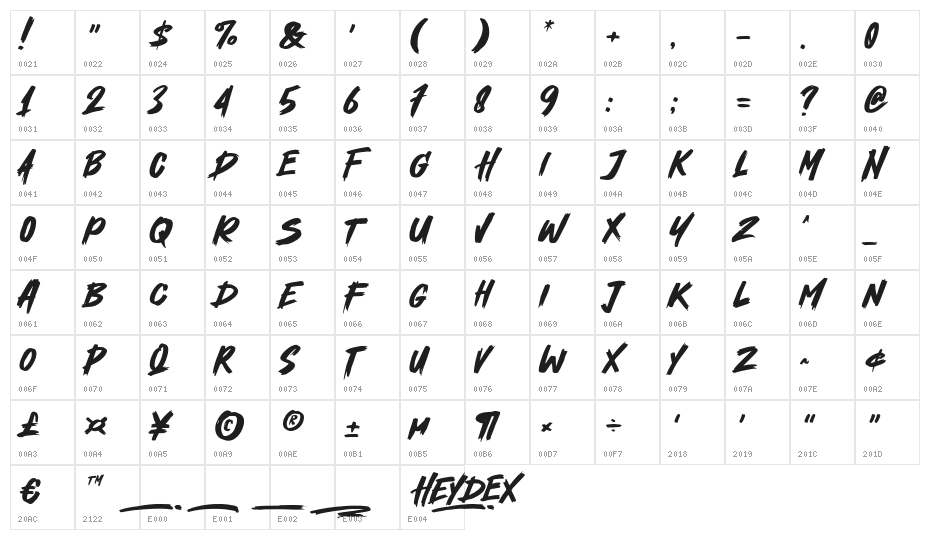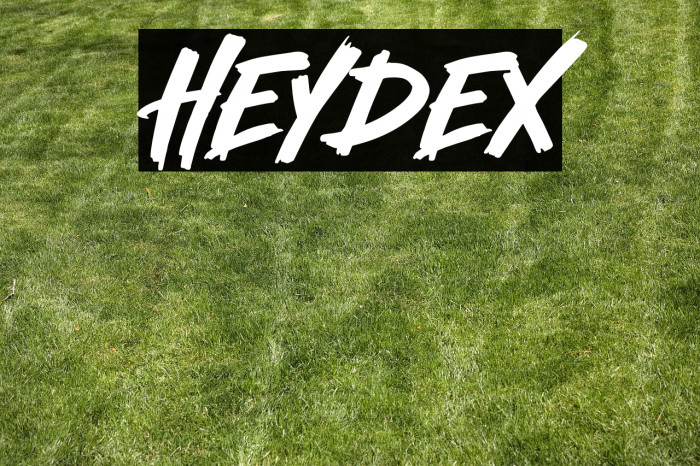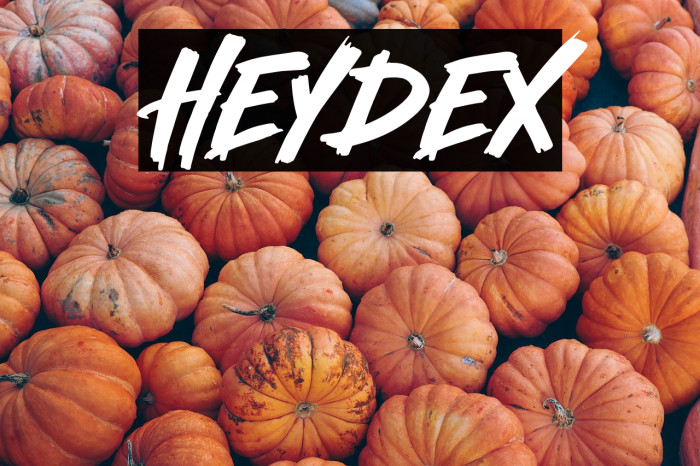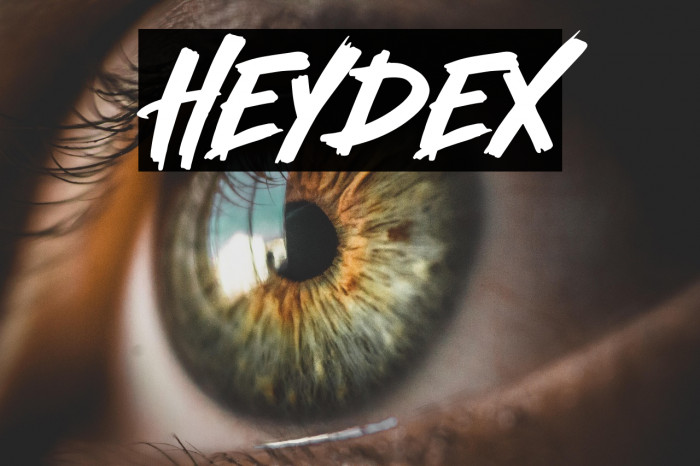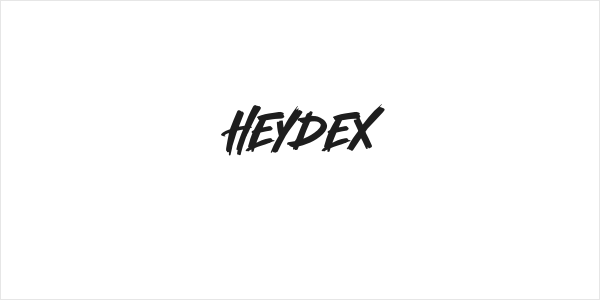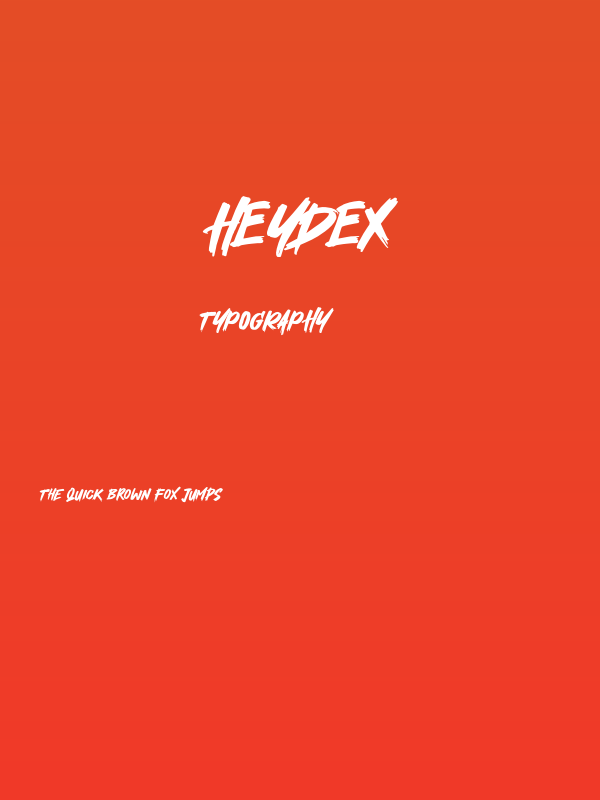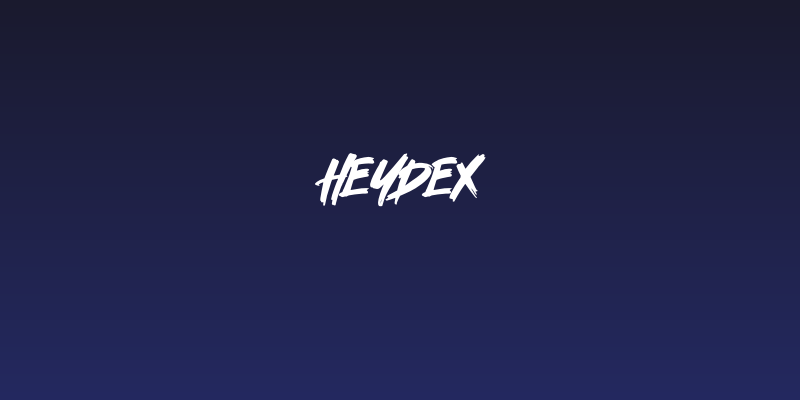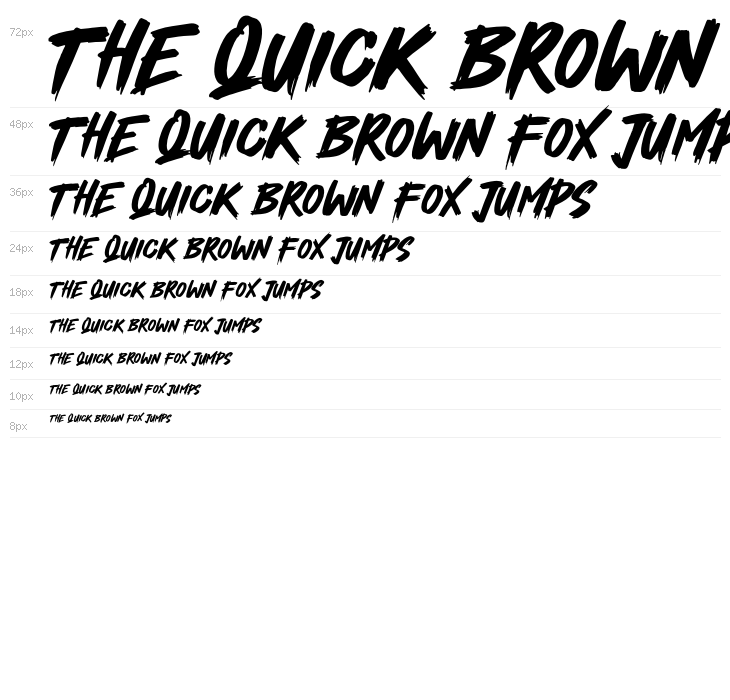
Heydex Font
Heydex Description
This font features a bold, energetic style with a brush-like appearance, giving it a dynamic and expressive feel. The strokes are thick and irregular, creating a sense of movement and spontaneity. The uppercase and lowercase letters maintain a consistent style, with sharp angles and a slightly slanted orientation, enhancing its lively character. The numbers and special characters follow the same aesthetic, ensuring a cohesive look across all elements. This font is ideal for projects that require a strong visual impact and a modern, edgy vibe.
| Overall Style | Modern, Energetic, Expressive |
| Proposed Projects | Ideal for posters, logos, branding, and any design needing a bold, energetic touch. |